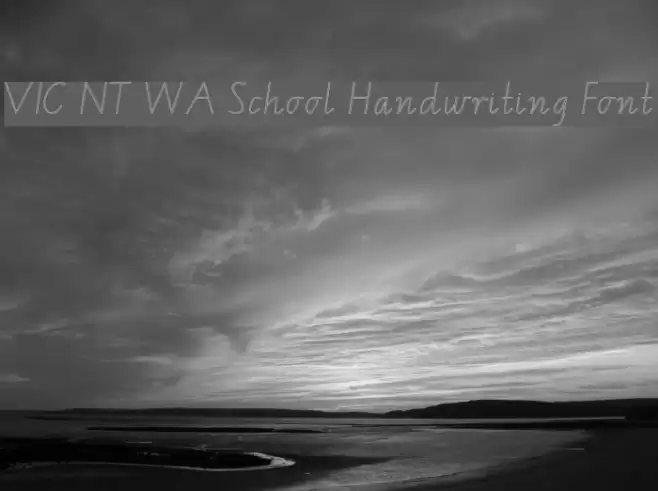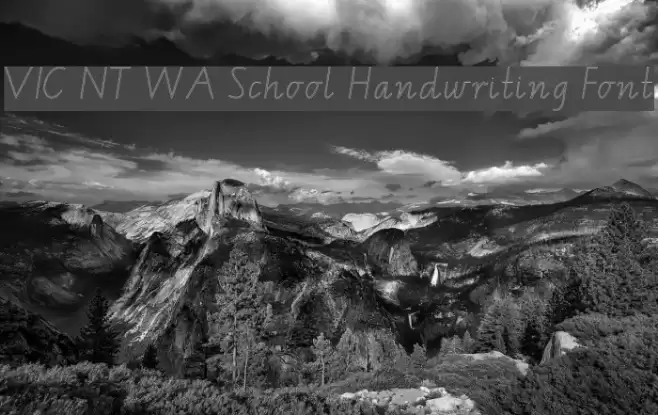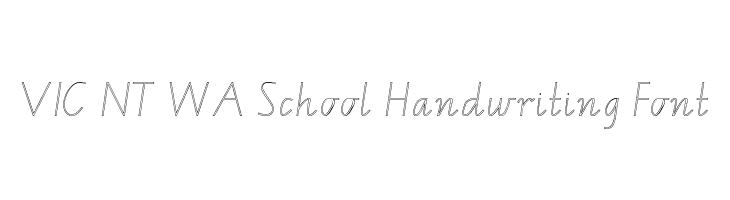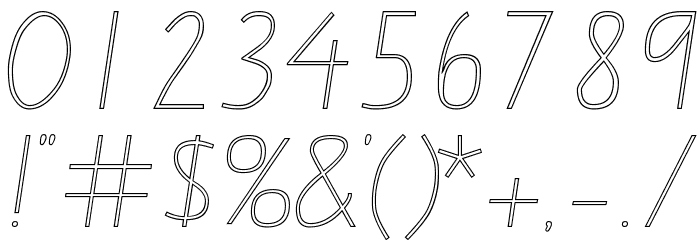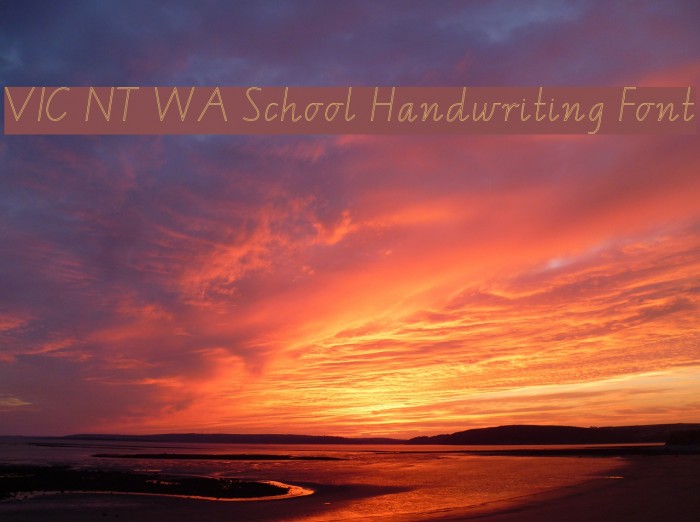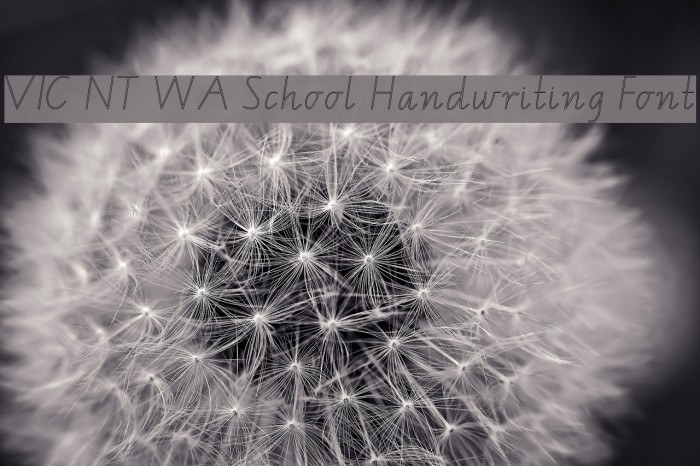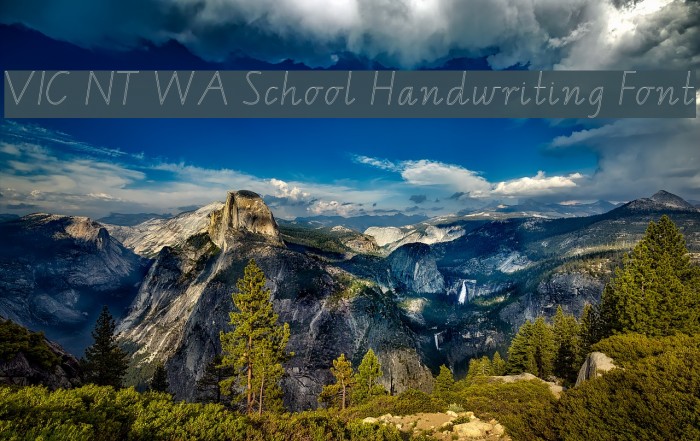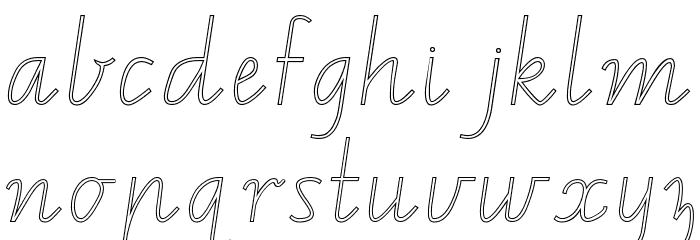
VIC NT WA School Handwriting Font Font
VIC NT WA School Handwriting Font Description
This font features a clean, legible style reminiscent of traditional handwriting taught in schools. The uppercase letters are tall and slightly narrow, with a consistent stroke width that gives them a uniform appearance. Lowercase letters maintain a similar style, with gentle curves and a slight slant that adds a touch of elegance. The numerals are clear and easy to read, matching the overall aesthetic of the alphabet. Special characters are well-integrated, maintaining the same line weight and style, ensuring consistency throughout. This font is ideal for educational materials, providing clarity and readability while retaining a personal touch.
A clean, legible handwriting-style font ideal for educational use from Uncategorized fonts.
- Proposed Projects: Educational materials, children's books, instructional guides, and school worksheets.
- Overall Style: Classic
- Use Case: Body text, Educational materials